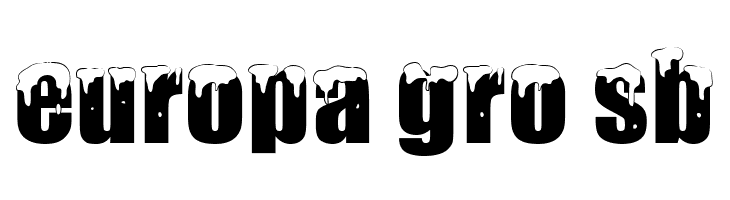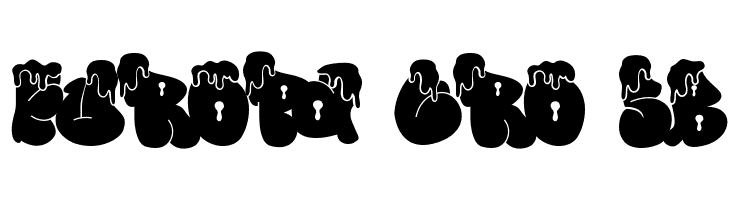
• Polar Snow
( Fonts by Display Studio )
A bold, decorative font with snow accents, perfect for winter themes.
• Snow Bunny
( Fonts by Si Panji )
A playful, dripping font with bold, rounded characters ideal for creative projects.
• SNOW BLUE
( Fonts by girinesia.std )
A bold, decorative font with snow-capped letters for a festive look.
• The Winter Child
A playful, winter-themed font with icicle-like drips on bold characters.
• Christmas Pudding
( Fonts by K )
A bold, playful font with thick, rounded strokes and a festive feel.
• Jolly Sweater Regular
A decorative font with a knitted, sweater-like appearance.
• Halloween Sparkle
( Fonts by Misti's Fonts )
A whimsical, decorative font with curly embellishments and a festive appearance.
• Cold Snowflake One
( Fonts by PutraCetol Studio )
A bold, decorative font with a snowflake pattern, perfect for festive themes.
• Sugar Christmas
( Fonts by Scratchones )
A playful, bold font with a hand-drawn, festive style.
• Christmas Starlight
( Fonts by Scratchones )
A playful, festive font with a hand-drawn, decorative style.